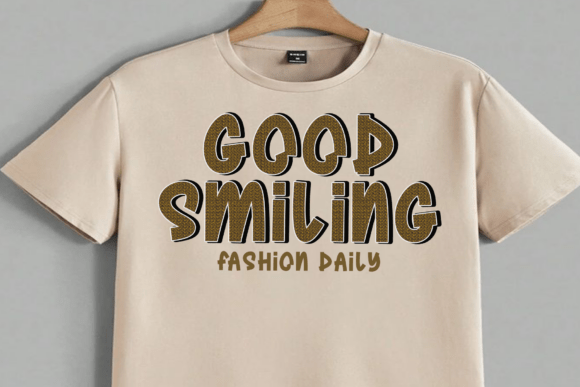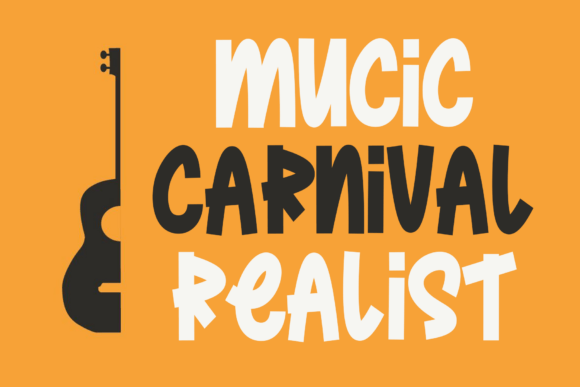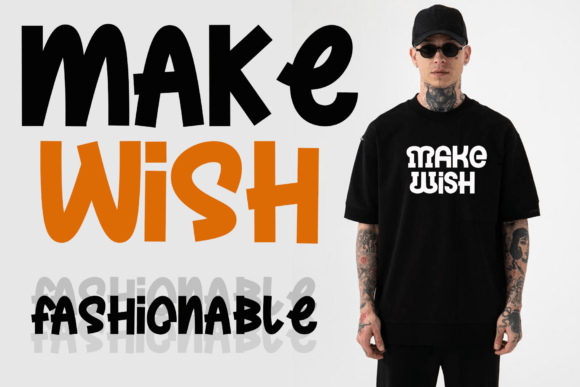
Introduction to Shopping Font
Have you ever stumbled upon a design that immediately catches your eye, making you want to stop and take a closer look? For many designers, that moment is what drives us to create something truly special. And when it comes to grabbing attention, few fonts are as effective as the Shopping Font.
This bold display typeface is more than just a pretty face – it’s a powerful tool in a designer’s arsenal. With its playful letterforms and quirky angles, the Shopping Font is perfect for anything from posters to social media graphics, adding a dynamic and approachable feel that instantly draws the viewer’s eye.
Key Features of Shopping Font
- High-quality, vector-based font ideal for creative projects
- Perfect for e-commerce websites, shopping apps, and retail branding
- Includes a range of styles and weights to suit different design needs
- Designed as a valuable design resource for professionals and hobbyists alike
Honest Review: Shopping Font
I recently stumbled upon the Shopping Font, and I must say it’s been a game-changer for my creative project. As a designer, I’m always on the lookout for high-quality fonts that can elevate my work. The Shopping Font definitely delivers.
- ✨ High-quality design: The Shopping Font is well-crafted, with clean lines and a modern aesthetic.
- ⚠️ Limited character set: The Shopping Font only includes a limited set of characters, which can be a problem for complex projects.
- ⚠️ Not ideal for body text: While the font is perfect for headings and titles, it may not be the best choice for body text due to its bold and attention-grabbing nature.
Overall, I’m impressed with the Shopping Font. While it has some limitations, its high-quality design and free download make it an excellent resource for designers. I would definitely recommend it for creative projects that require a bold and eye-catching font.
Getting the Most Out of Shopping Font
For optimal results, use the Shopping Font in conjunction with other design resources, such as high-quality images or graphics. Experiment with different font sizes, colors, and styles to create a unique and eye-catching design.
The Shopping Font is perfect for e-commerce websites, online stores, and marketing materials. It’s also great for creating social media graphics, blog posts, or any other content that requires a modern and sleek design.